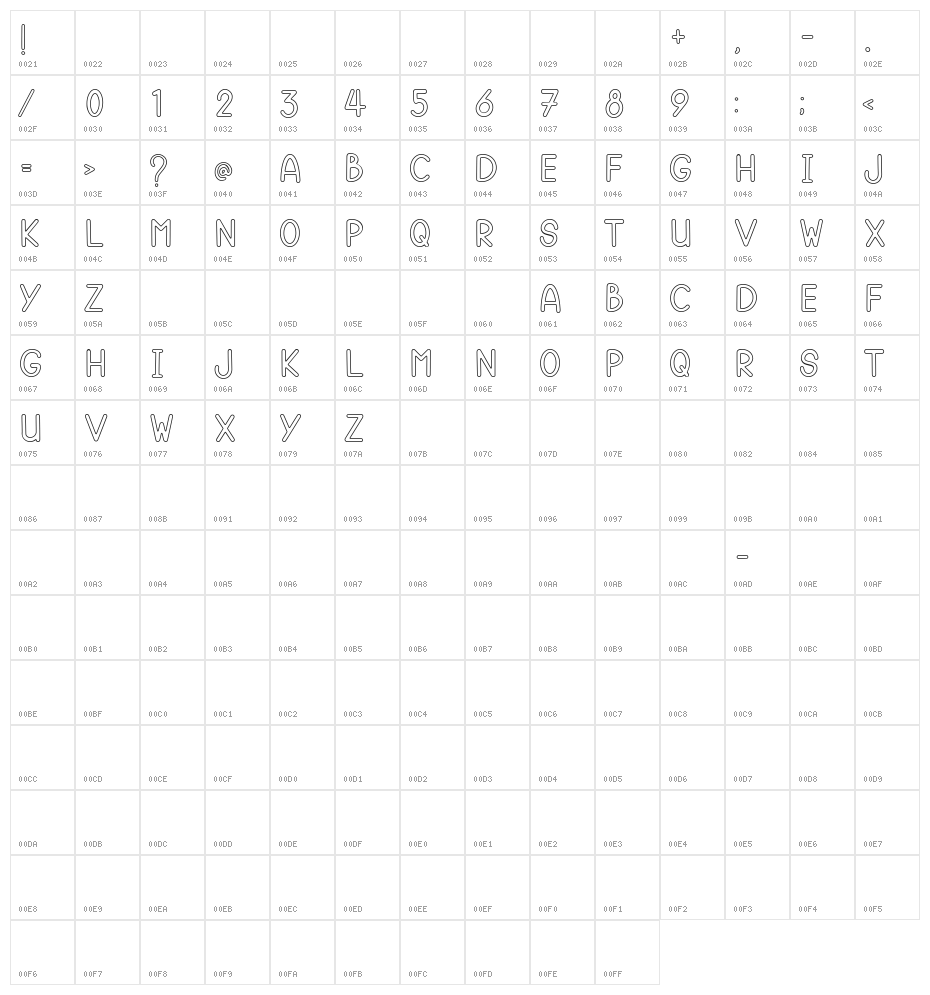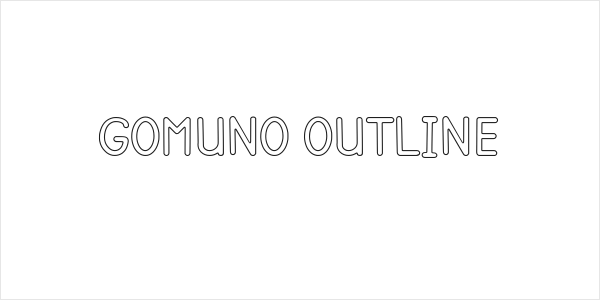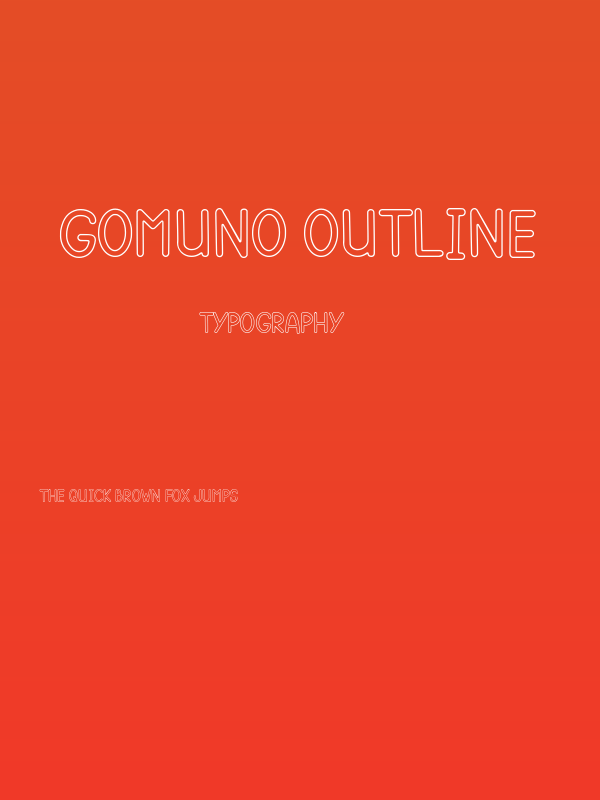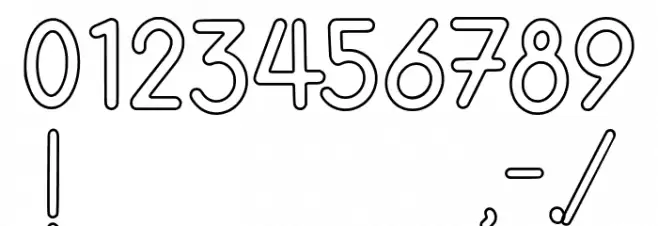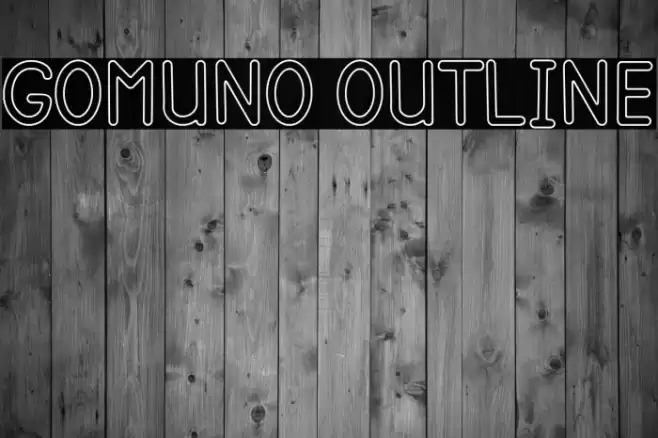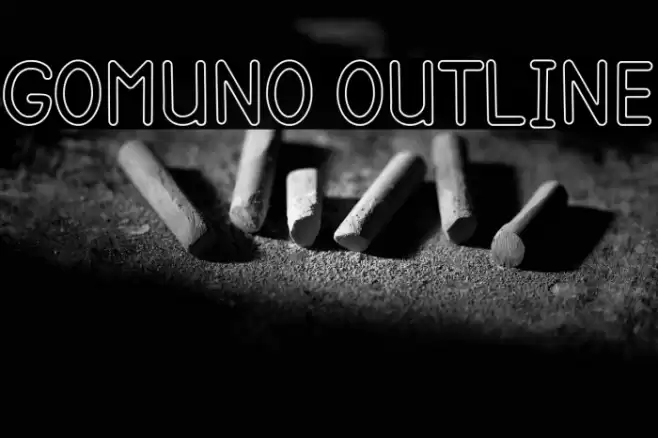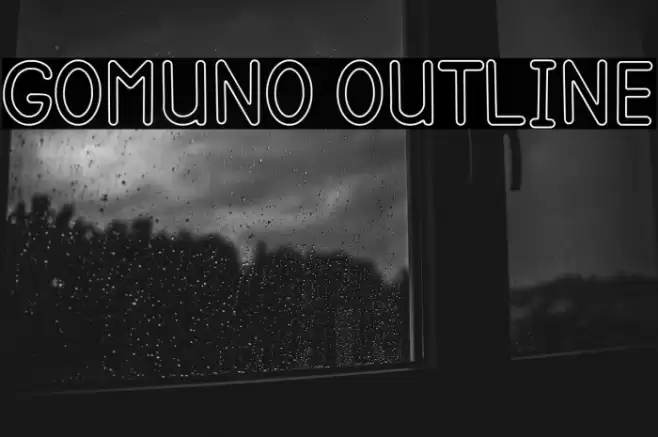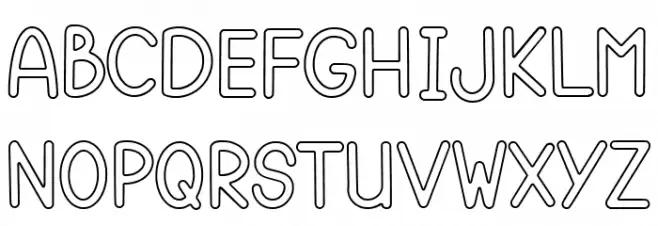
Gomuno Outline Font
Gomuno Outline Description
This font features a clean and modern outline style, characterized by its hollow, unfilled letterforms. The design is geometric and uniform, with consistent stroke widths that create a balanced and harmonious appearance. The uppercase and lowercase letters maintain a cohesive look, with rounded edges that soften the overall aesthetic. The numerals and special characters are crafted to match the letterforms, ensuring a seamless integration across all text elements. This font's outline nature makes it suitable for creative projects where a bold yet unobtrusive presence is desired.
| Proposed Projects | Ideal for posters, logos, headlines, and creative design projects where a distinctive outline style is desired. |